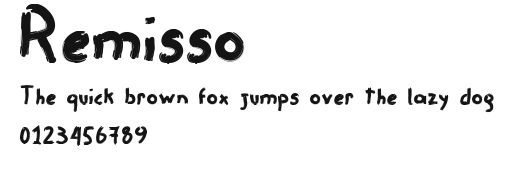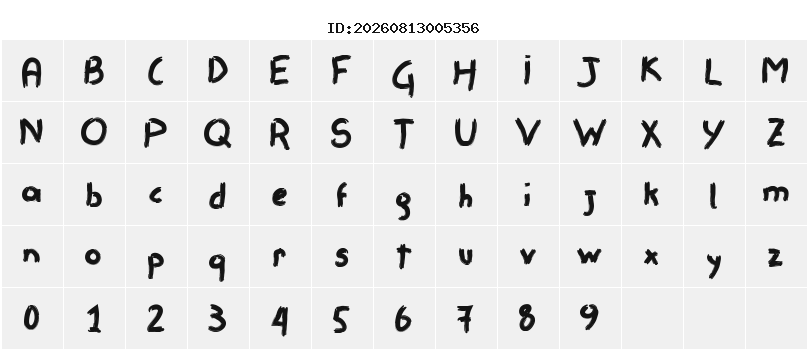
• Font Name: Remisso
• Designer: Marco Ballarè
About Remisso.ttf
Remisso.ttf is a modern, elegant sans-serif font designed for ultimate readability and visual harmony. Perfect for branding, headlines, web design, and print materials.